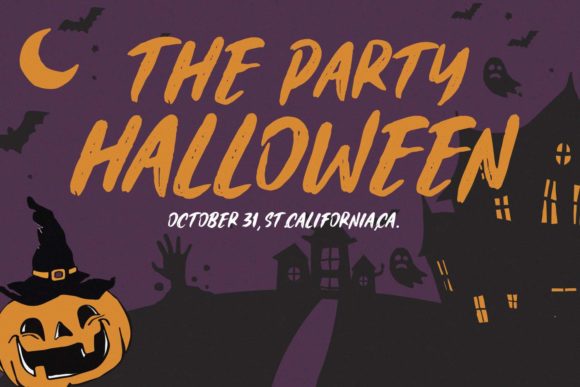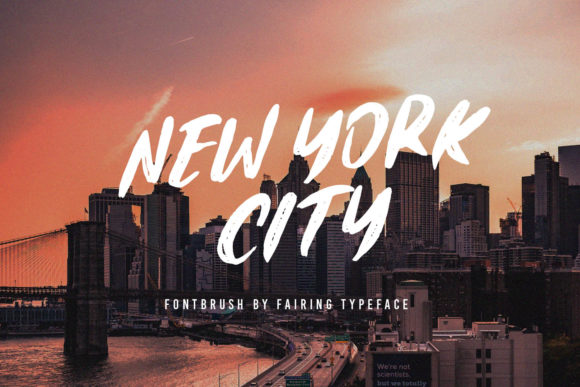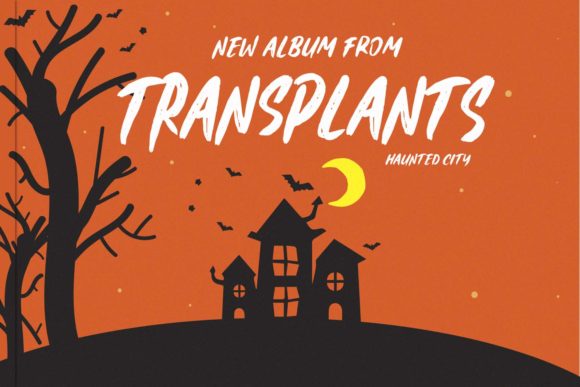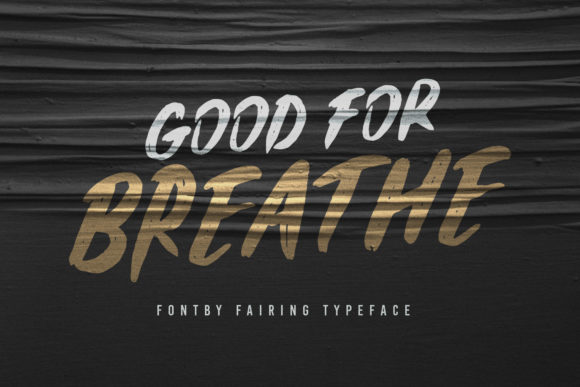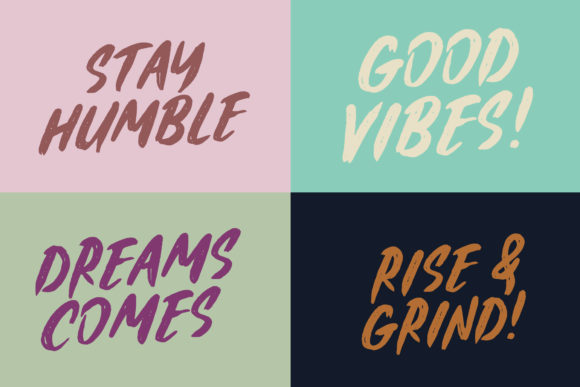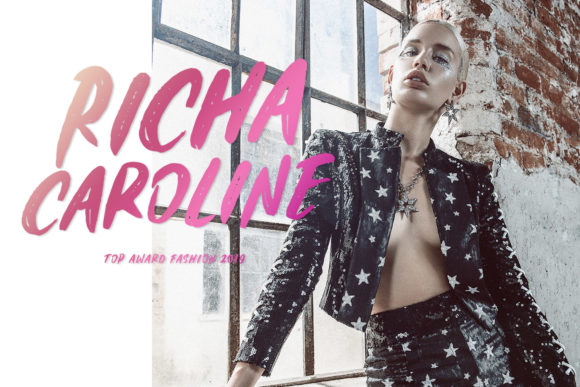
The Designer’s Delight: A Deep Dive into Fairing Font
I’ll never forget the time I was working on a branding project for a boutique bakery, and I just couldn’t find the perfect font to capture their whimsical yet elegant vibe. The client was specific about wanting something hand-painted and unique, but I was coming up blank. That’s when I stumbled upon Fairing Font, and it was love at first sight! ✨ In this article, I’ll share my experience with Fairing, its features, and how to make the most of this beautiful hand-painted display font.
An Honest Review of Fairing Font
- ✨ Unique Hand-Painted Style: Each character is carefully painted to perfection, giving it a distinct, artisanal feel.
- ✅ Versatility: Fairing is well-suited for a wide variety of projects, from branding and packaging to signage and editorial design.
- 💡 Excellent Legibility: Despite its artistic nature, Fairing remains highly legible, even at larger sizes.
While Fairing is an exceptional font, there are a few things to keep in mind:
- ⚠️ Limited Use in Body Text: Due to its decorative nature, Fairing is best used in moderation. It’s not ideal for lengthy body text.
- 🤔 Kerning and Tracking: As with many display fonts, you may need to adjust kerning and tracking to achieve optimal results.
- Explore OpenType features, such as Stylistic Alternates and Glyphs, to add variety to your text.
The Backstory of Fairing Font
Fairing was created with the intention of capturing the essence of hand-painted typography. The designer aimed to create a font that exudes a sense of artisanal charm while maintaining legibility and versatility. Through meticulous attention to detail, Fairing was crafted to become a go-to font for designers seeking a unique, hand-painted look.
| Font Name | Fairing Font |
| Author | lickermelody |
Q: What type of projects is Fairing best suited for?
A: Fairing is well-suited for a wide variety of projects, including branding, packaging, signage, and editorial design. It’s perfect for any project requiring a unique, hand-painted look.
Q: Does Fairing support OpenType features?
A: Yes, Fairing supports OpenType features, including stylistic alternates and glyphs. This allows for greater typographic flexibility and creativity.